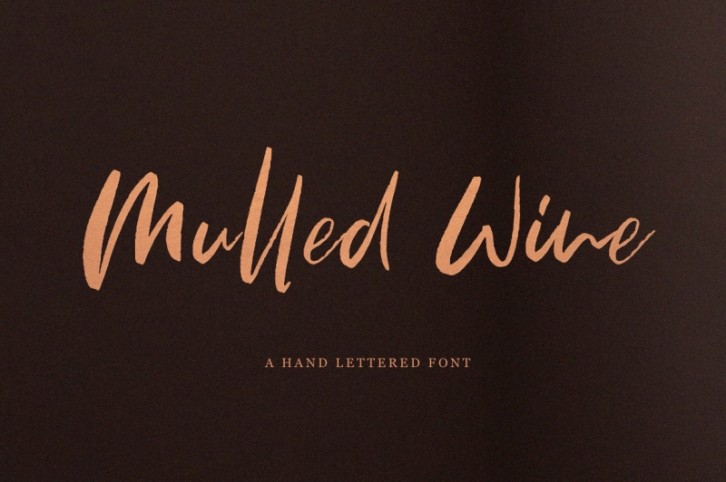
Mulled Wine- a new fresh handmade font.
This font is ideal for branding and decorate your any project, are perfect for wedding invitation or your blog. Also with their help, you can create a logo or beautiful frame for your home. Or just use for your small business, book covers, stationery, marketing, magazines and more. Special for you I prepared a lot ligatures: tt, bb, dd, ff, ll, rr, ss.